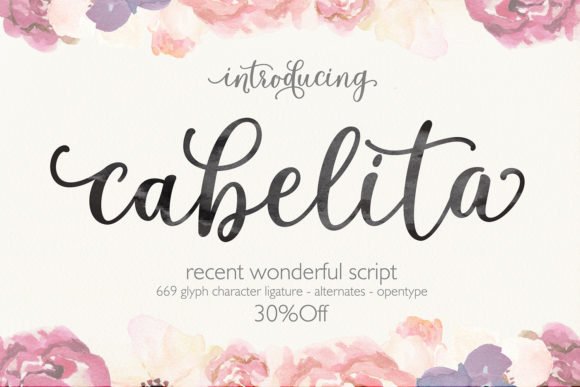
Introducing the Cabelita Script Font, a beautiful and unique script font that adds a touch of elegance and sophistication to any project. With its natural and gentle feel, Cabelita Script Font is perfect for wedding invitations, parties, graduation, birthday, gathering, greeting cards, prints, banners, blogs, clothing, quotes, and more. This versatile font is not only visually stunning but also PUA encoded, making it easy to access all the glyphs and swashes you need to create stunning designs.
- Unique Characteristics: Cabelita Script Font features elegant, flowing script letters with subtle flair and flair on the terminals, making it perfect for creative and artistic projects
Cabelita Script Font Review
Cabelita Script Font is a beautiful, elegant font that can add a touch of sophistication to any design. ✨ I particularly love its flowing, cursive lines and the way it looks perfect for titles and headings. It’s also great for creating a sense of luxury and refinement, making it perfect for high-end brands or publications.
However, there are some limitations to consider. ⚠️ Firstly, the font may not be as versatile as some other script fonts, and it may not be the best choice for body text or long passages of text. It can also be a bit difficult to read in certain sizes or resolutions, so you may need to experiment with different font sizes and line heights to get it looking just right.
Here are some of the key features and limitations of Cabelita Script Font:
- Pros:
- Elegant, flowing lines
- Perfect for titles and headings
- Creates a sense of luxury and refinement
- Cons:
- May not be as versatile as other script fonts
- Difficult to read in certain sizes or resolutions
Overall, I think Cabelita Script Font is a beautiful and elegant font that can add a touch of sophistication to any design. However, it’s not without its limitations, and you may need to experiment with different font sizes and line heights to get it looking just right.
Cabelita Script Font is ideal for creating elegant and sophisticated designs, such as:
– Luxury branding and marketing materials
– High-end packaging and labels
– Editorial and magazine designs
Getting the Most Out of Cabelita Script Font
To get the most out of Cabelita Script Font, experiment with different font sizes, colors, and combinations to create unique and eye-catching designs.
Alternatives to Cabelita Script Font
Great Vibes is a modern script font with a relaxed feel. It’s perfect for creating a casual and friendly atmosphere in designs, such as greeting cards, invitations, or social media graphics.
Compared to Cabelita Script Font, Great Vibes has a more relaxed and casual tone, making it suitable for everyday designs. Cabelita Script Font, on the other hand, has a more elegant and sophisticated feel.
Alex Brush is a beautiful script font with a handwritten feel. It’s ideal for designs that require a personal and creative touch, such as wedding invitations, menus, or branding materials.
Alex Brush has a more elegant and refined feel compared to Cabelita Script Font, making it suitable for high-end designs. Cabelita Script Font has a more playful and whimsical tone, making it perfect for casual designs.
Carolyna Pro is a sophisticated script font with a luxurious feel. It’s perfect for designs that require a touch of elegance and sophistication, such as luxury branding, high-end packaging, or fine art prints.